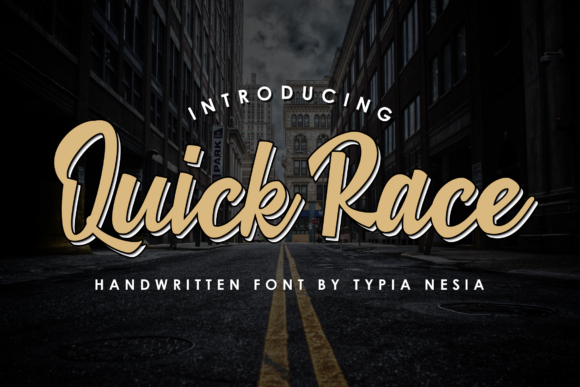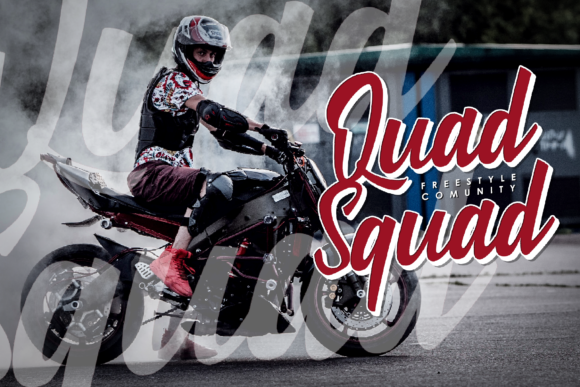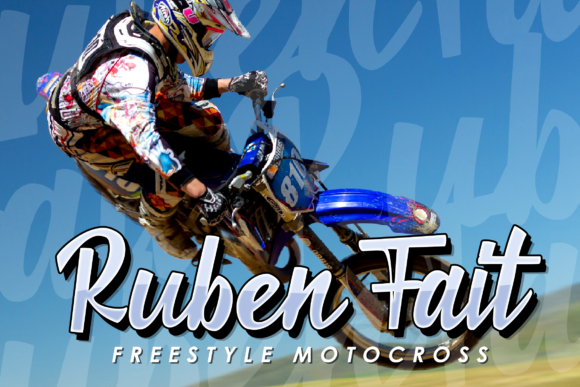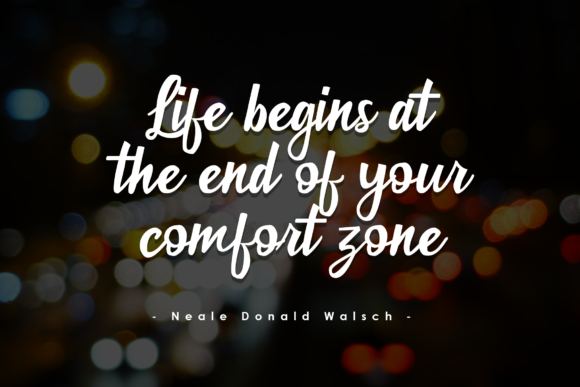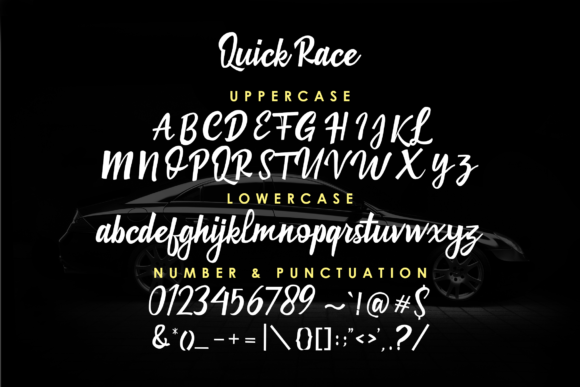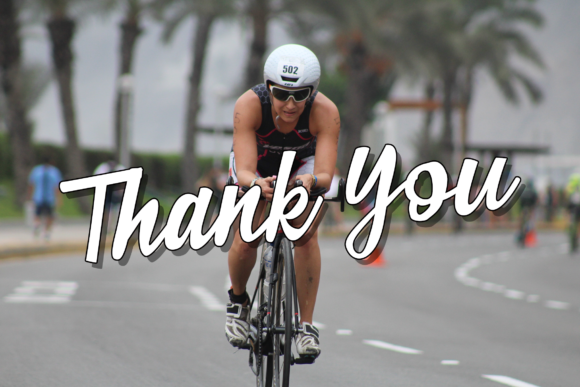
Quick Race Font
About Quick Race Font
Quick Race is a classic throw-back font that delivers nostalgia in each of its letters. Fall in love with its unique style!